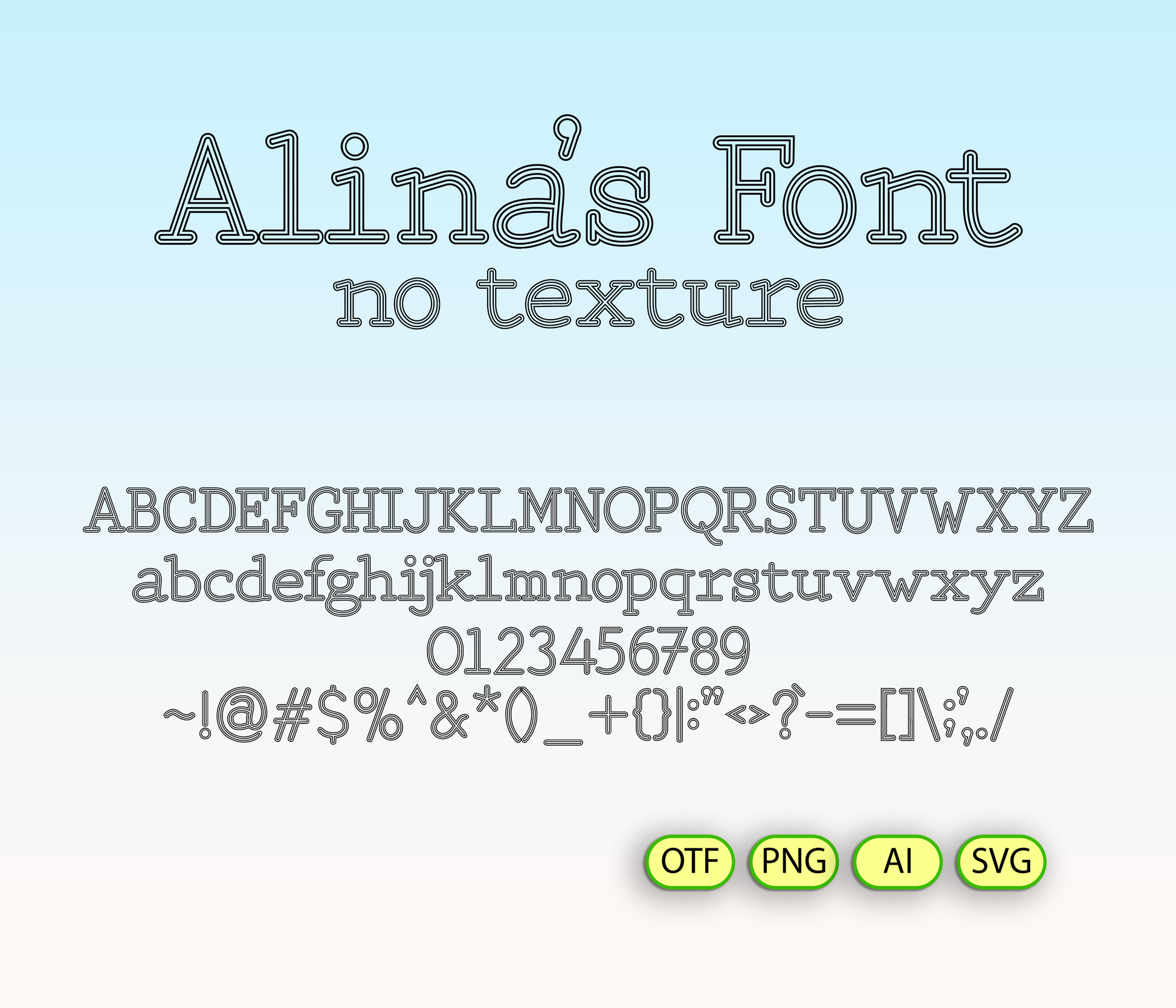
Manual Type – Retro Monospaced Editorial Font
Step into the distinguished world of traditional publishing with our Manual Type font, capturing the essence of newsroom precision and editorial excellence. Perfect for publishing house designers, journalism content creators, editorial brand developers, and vintage media specialists, this font brings the authoritative, professional character of classic editorial typewriters to your projects. Create compelling publication materials, newspaper-inspired merchandise, or distinguished digital content with the credible, journalistic spirit of traditional press operations and editorial craftsmanship.
Our Manual Type font features precise, editorial letterforms and professional spacing that reflects the trustworthy yet dynamic aesthetic of newsroom typewriters and traditional publishing standards. Ideal for:
• Media Events: Create authoritative press conference materials, journalism awards signage, and editorial gathering announcements with professional newspaper credibility
• Publishing Design: Perfect for magazine layouts, newspaper mastheads, and editorial brand identity that celebrates traditional journalism excellence
• Digital Media: Enhance news blogs, editorial websites, and media social platforms with headers that express journalistic integrity and editorial authority
• Content Creation: Add authentic character to newsletter designs, editorial publications, and promotional materials for media-focused events
• Professional Projects: Bring editorial elegance to press releases, media kits, and artistic endeavors inspired by the aesthetics of traditional newsroom culture